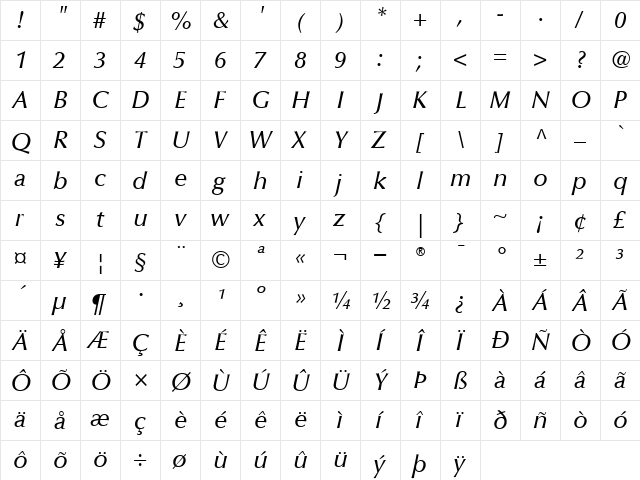
Optima MediumItalic
Design Context for Optima Typeface
Optima offers clean, dependable letterforms without strong stylistic allegiance, making it a practical choice for designers who need flexibility. The slanted form adds forward momentum and visual energy.
Pro Tip: Use Optima for emphasis, pull quotes, and subheadings where its slanted energy can add rhythm to the layout.